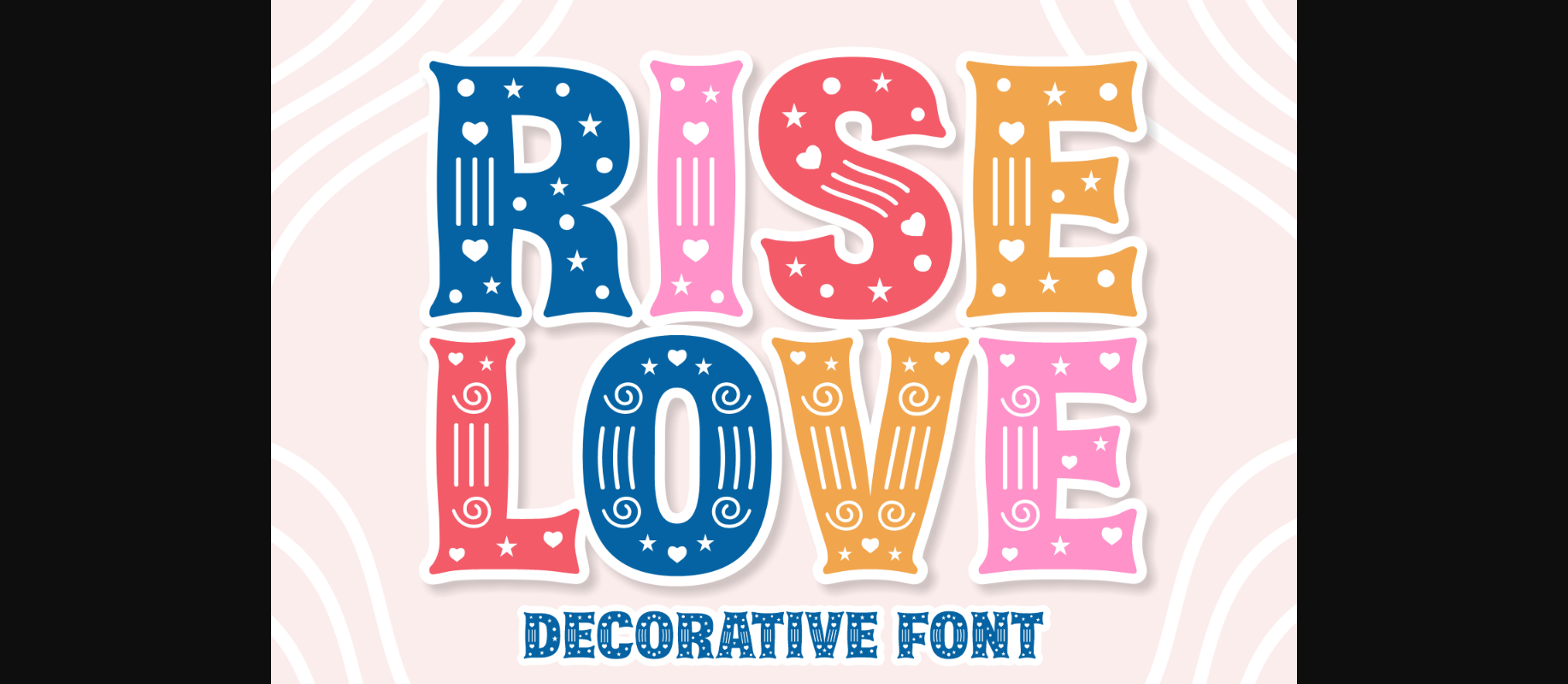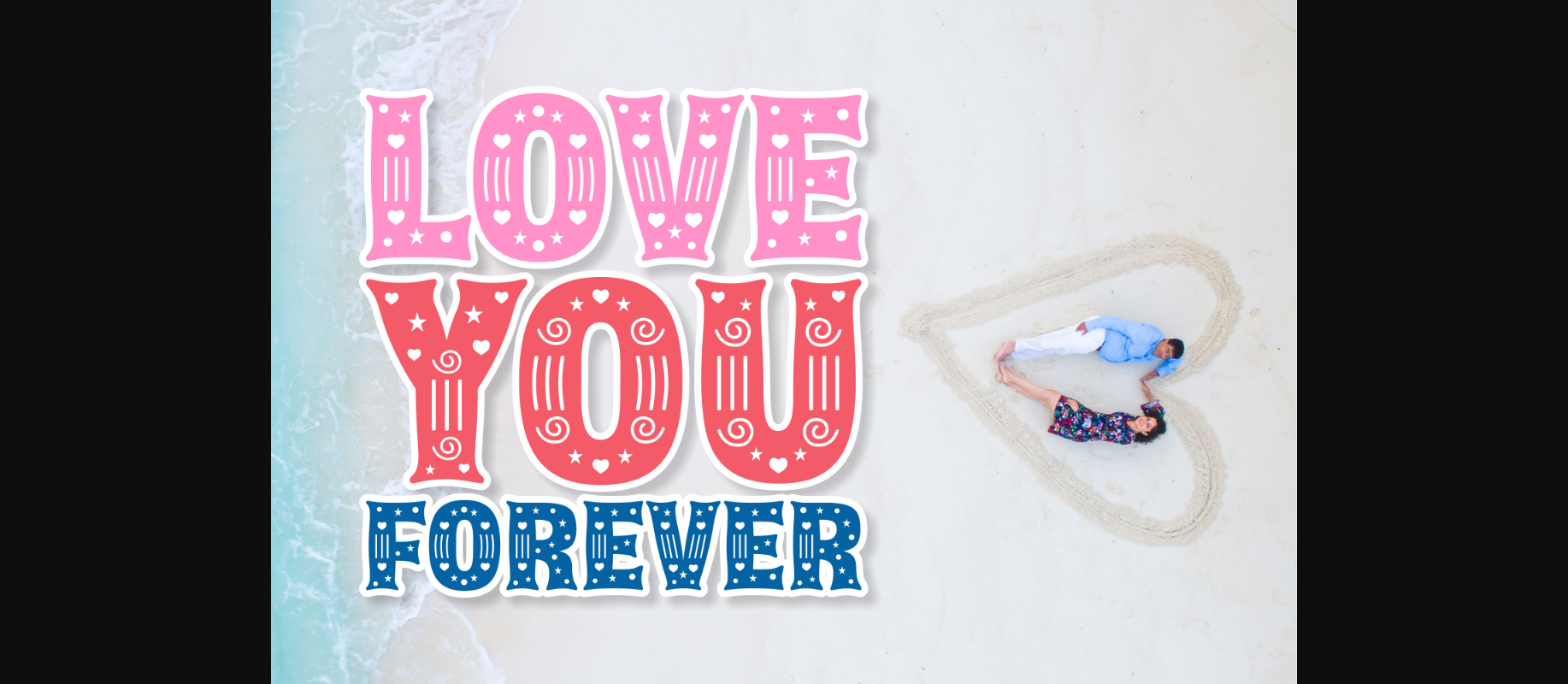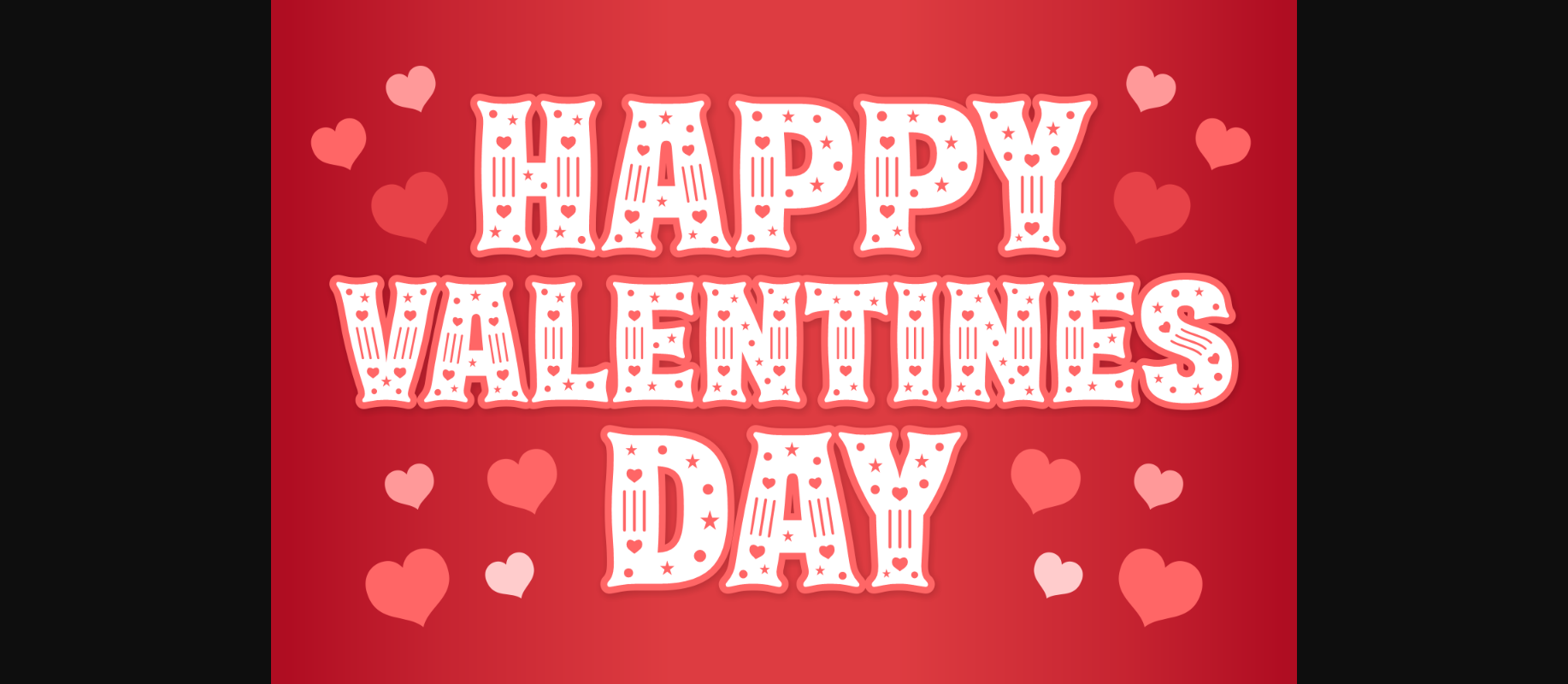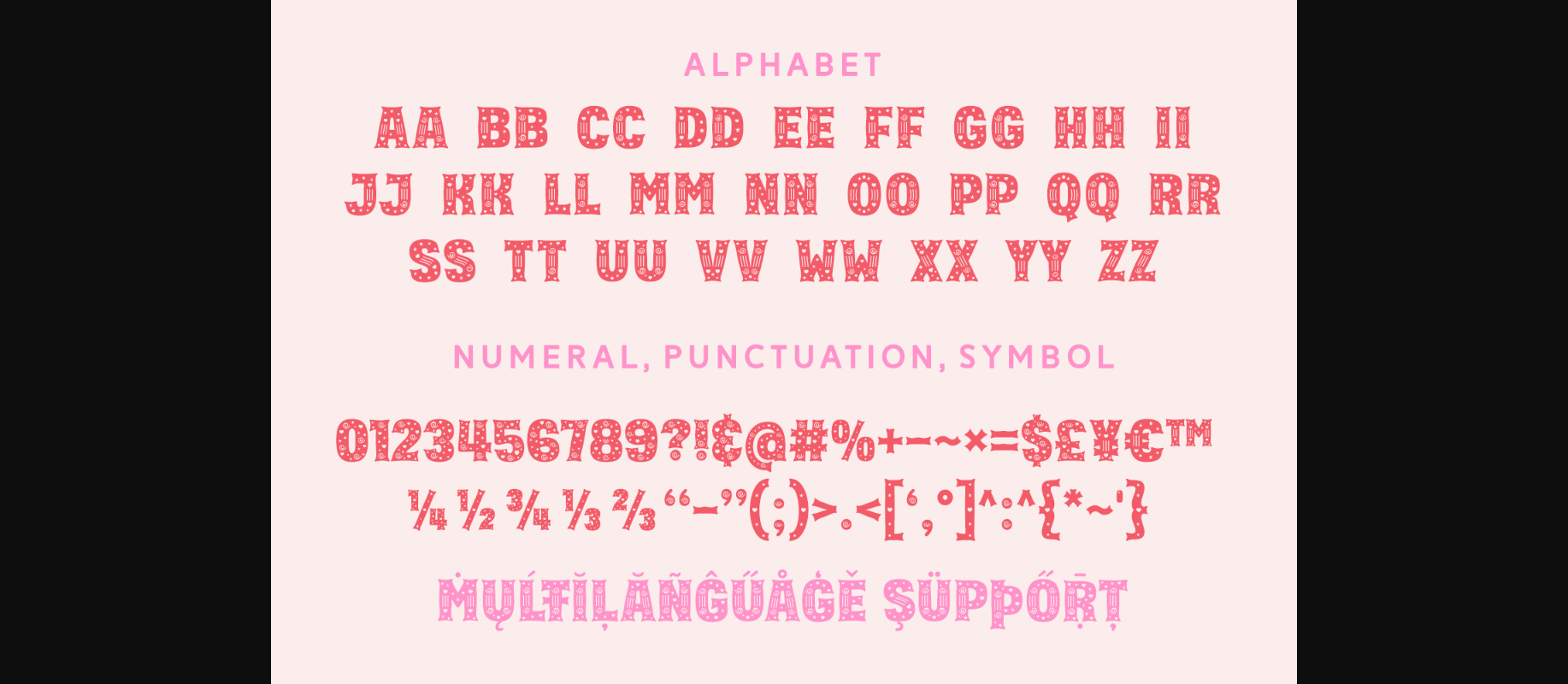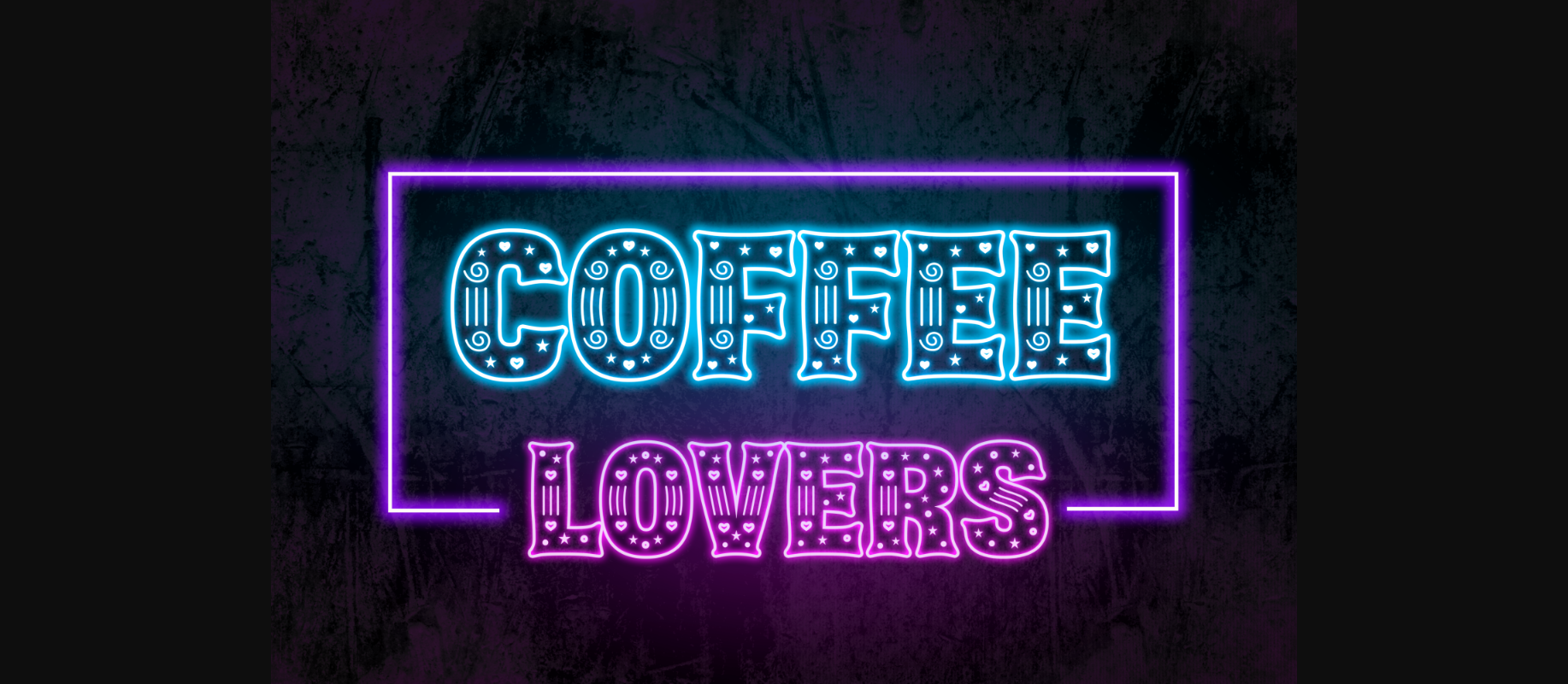
HomeDecorative FontsRise Love Font Decorative Fonts Rise Love Font FacebookTwitterPinterestWhatsApp 1 of 7 ... Rise Love Font Poster 2... Rise Love Font Poster 3... Rise Love Font Poster 4... Rise Love Font Poster 5... Rise Love Font Poster 6... Rise Love Font Poster 7... About Rise Love Font Rise Love is a cool, thick lettered and original decorative font. Due to its unique design, this font will instantly make an impact on your creations. Your imagination is the limit. DOWNLOAD NOW 245 0 People also explored Los Angeles Font Weaphire Smoke Font Qandaru Font Anthemi Font Air Compressed Signature Font Calm Down Beibeh Font Merry Christmas Font Tattoo Master Font Homework Font Kangaroo Font Yellowbells Font TagsRise Love Font Previous articleBirder FontNext articleNighters Font LEAVE A REPLY Cancel reply Comment: Please enter your comment! Name:* Please enter your name here Email:* You have entered an incorrect email address! Please enter your email address here Website: Save my name, email, and website in this browser for the next time I comment. BLOG Font Trends 2025: Top Typography Styles for Spring Best Free Fonts for Logo Design in 2025 (Stylish & Professional) Free Fonts Risk: Why Free Fonts Can Be Dangerous for Designers Where to Buy American Fonts Online in 2024 Personal Use Free Evensong Hollow Personal Use Free Read more Authurium Personal Use Free Read more Helsinki Personal Use Free Read more Calega Personal Use Free Read more